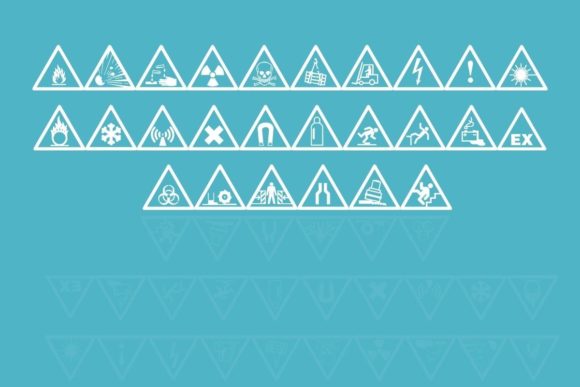
Warning Tables Font
About Warning Tables Font
“Warning Tables” is a dingbats font that features a collection of icons representing various warning and caution signs. These icons can be a valuable addition to your next informative project, helping your design stand out and effectively communicate important messages.
With “Warning Tables,” you have access to a range of warning and caution symbols that can be used in various contexts. These icons are designed to catch attention and convey a sense of urgency or importance. Whether you’re creating safety manuals, instructional materials, warning labels, or any project that requires visual cues for potential hazards, “Warning Tables” can provide you with the necessary elements.
By incorporating these warning and caution signs into your design, you can quickly communicate essential information and draw attention to potential dangers or precautions. The icons in “Warning Tables” cover a wide range of warning signs, including symbols for fire hazards, electrical dangers, biohazards, slippery surfaces, high voltage, toxic substances, and more. These symbols are universally recognized and can help convey messages across language barriers.
When using “Warning Tables” in your design, consider the context and purpose of the project. These icons can be used individually or combined to create visually appealing compositions. You can adjust the size, color, and placement of the icons to suit your specific design needs. Additionally, mixing “Warning Tables” with other fonts and graphic elements can enhance the overall visual impact and create a cohesive and informative design.
One of the advantages of using a dingbats font like “Warning Tables” is the ease of integration into your design workflow. As a font, it can be typed and manipulated just like regular text, making it convenient to use and customize. You can easily scale the icons, align them with other elements, and apply various formatting options to match the style of your project.
Whether you’re creating safety manuals for workplaces, signage for public areas, educational materials, or any project that requires warning or cautionary elements, “Warning Tables” can provide you with a valuable resource. Its collection of icons helps you effectively convey important messages and draw attention to potential hazards, ensuring that your design stands out and communicates clearly.
In summary, “Warning Tables” is a dingbats font that offers a collection of icons representing warning and caution signs. By incorporating these symbols into your informative projects, you can enhance the visual appeal and effectively communicate important messages. So, utilize “Warning Tables” to help your design stand out and ensure that your warnings and cautions are easily understood by your audience.